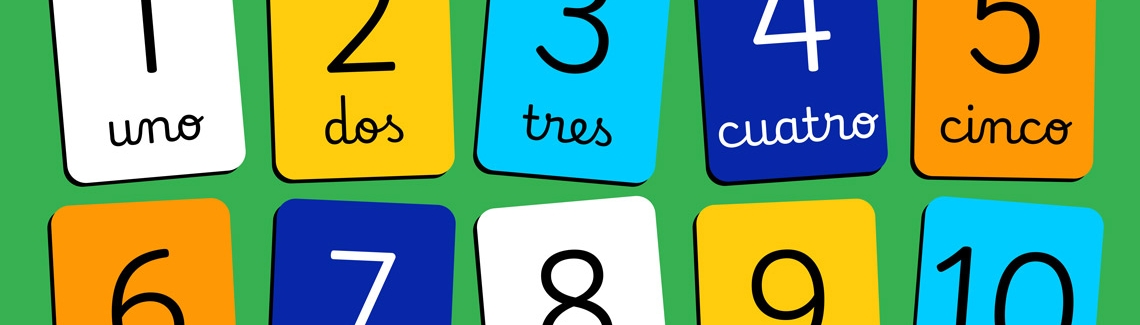
Playwrite wins ED-Awards gold
TypeTogether took home two awards from the European Design Awards, completing a sweep of international recognition.
We are delighted to announce that Playwrite, our type engine for handwriting education, won gold in the 2025 European Design Awards (ED-Awards) in the category of Original Typeface, Text. In addition, Playwrite won Best of Show in graphic applications, recognising the hard work and excellence our design team put into showcasing Playwrite and its abilities.
The award was accepted by Agyei Archer, our sales and client liason, who also gave a well-received talk at the European Design Festival on how TypeTogether’s decentralised structure works. The ED-Awards celebrate European design, embracing its regional distinctiveness as well as its common foundations. A complete list of the 2025 winners can be found on the ED-Awards website.
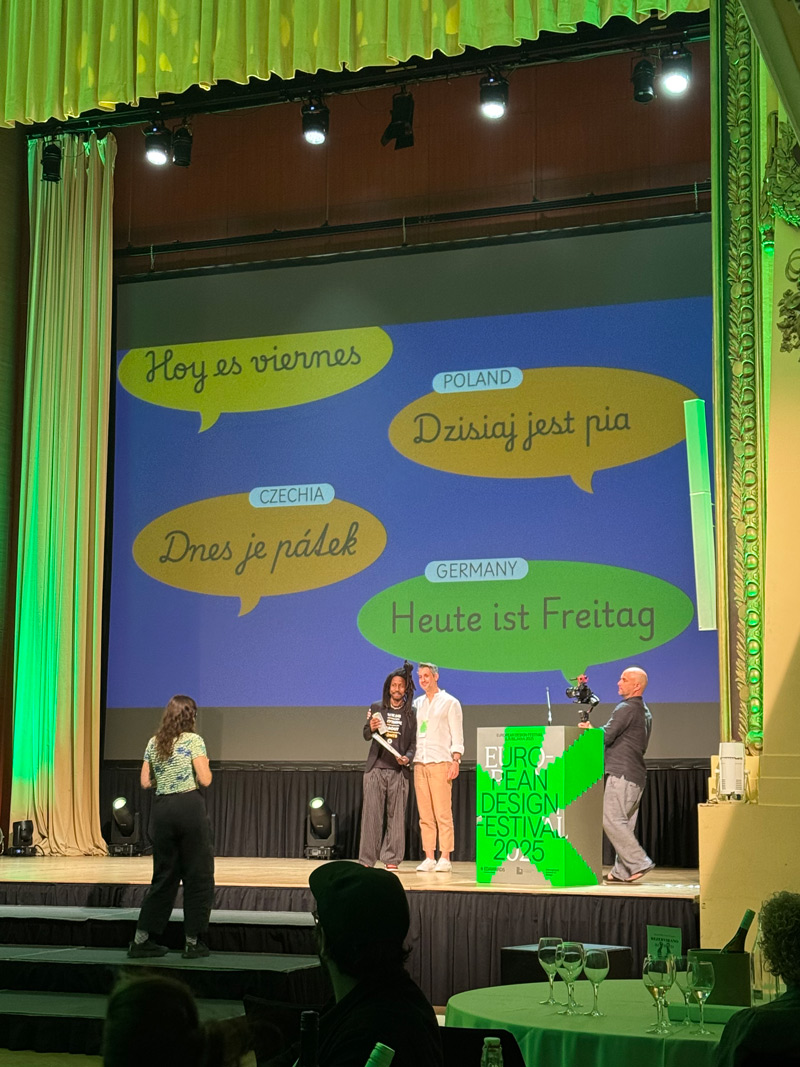
Playwrite is one of the products of our Primarium project, which conducted more than two years of research into how handwriting is taught in more than 40 countries around the world.